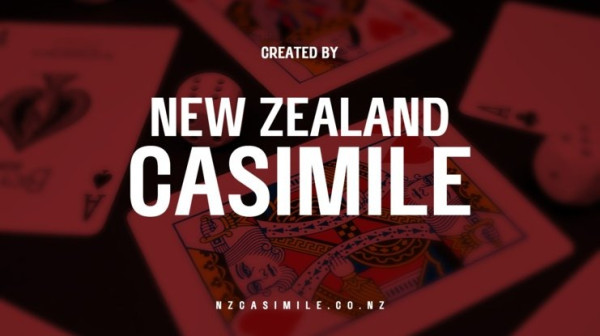
New Zealand Casimile Font
New Zealand Casimile Font is the perfect tool for creating eye-catching headlines and elegant logos that will make your brand stand out from the rest even though the font is Basic.
The New Zealand Casimile Font is easy to read and has a strong presence, making the font ideal for use in subsequent documents marketing, posters, flyers, etc. Whether you are a professional graphic designer or someone looking to add style to their personal project, the New Zealand Casimile Font is the perfect choice.